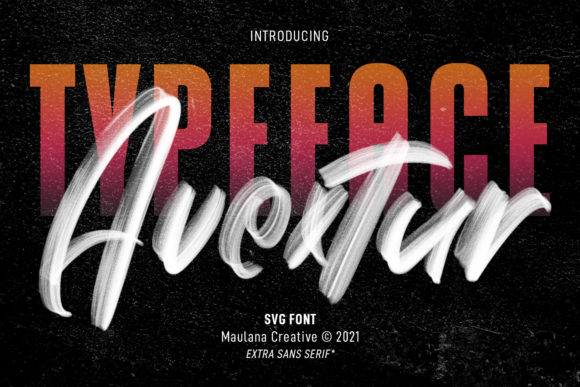
The Ultimate Guide to Avextur Font: Elevate Your Designs with a Casual Street Style
I’ll never forget the time I was working on a project for a client who needed a bold, eye-catching font for their sportswear brand. I spent hours scouring the internet for the perfect font, but nothing seemed quite right. That was until I stumbled upon Avextur Font. With its casual, street-styled display, it was love at first sight! In this article, I’ll share my experience with Avextur Font, its features, and how to make the most of it in your designs.
Avextur Font: The Perfect Choice for Designers, Crafters, and Hobbyists
Avextur Font is a versatile and stylish display font that’s perfect for a wide range of design projects, including t-shirts, sportswear, logos, advertisements, clothing, and more. Its casual, street-styled aesthetic makes it an excellent choice for designers, crafters, and creative hobbyists who want to add a touch of urban flair to their work.
- ✨ Unique and stylish design: Avextur Font has a distinctive look that’s sure to turn heads.
- ✅ Highly versatile: This font can be used for a wide range of design projects, from logos to advertisements.
- 💡 Easy to read: Despite its bold and stylized design, Avextur Font is surprisingly easy to read, even at smaller sizes.
While Avextur Font is an excellent choice for many design projects, there are a few things to keep in mind. For example:
- 🤔 Limited use in formal designs: Due to its casual, street-styled aesthetic, Avextur Font may not be the best choice for formal designs or projects that require a more professional look.
- ⚠️ May not work well in small sizes: While Avextur Font is easy to read at larger sizes, it may become distorted or difficult to read when scaled down.
The Backstory Behind Avextur Font
Avextur Font was designed by a team of creatives who wanted to create a font that captured the essence of urban street style. Inspired by graffiti, streetwear, and city living, Avextur Font is a reflection of the vibrant, eclectic spirit of the city.
Q: What is Avextur Font?
A: Avextur Font is a casual, street-styled display font perfect for designs such as t-shirts, sportswear, logos, advertisements, clothing, and more.